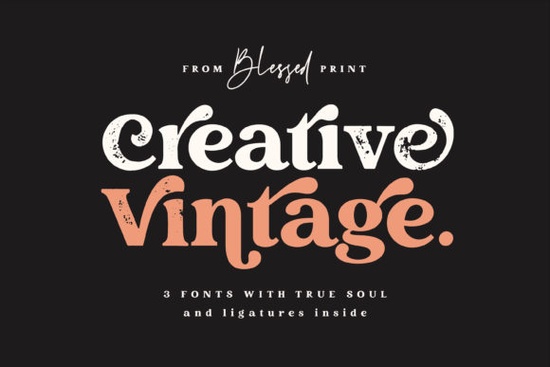
If you’ve been searching for a font that feels both nostalgic and fresh, Creative Vintage Font might be exactly what your next project needs. It’s not just another retro typeface it’s a duo font, meaning you get two distinct styles in one: a bold display version and a flowing script. Whether you’re designing merch for your Etsy shop, branding a small café, or personalizing wedding invites, this font adapts without losing its character.
What makes it especially handy is how well it pairs with other fonts in your toolkit. You could layer it over something clean like Cormorant Garamond for contrast, or let it stand alone on posters and packaging where you want to grab attention. The script version has enough personality to feel handcrafted, while the display style holds up even at smaller sizes useful for tags, labels, or social media graphics.
Who actually benefits from using Creative Vintage Font?
It’s not just for graphic designers. If you run a print-on-demand store, this font can help your t-shirts, mugs, or tote bags stand out with minimal effort. Crafters love it for vinyl cutting projects because the strokes are thick enough to avoid tearing. Small business owners use it for signage, menus, or promotional flyers it reads well from a distance but still feels personal up close.
Even hobbyists working on scrapbooks or greeting cards find it surprisingly easy to style. Since it’s a duo font, you can switch between the script and display versions to create hierarchy without needing extra typefaces. That’s a big time-saver when you’re juggling multiple projects.
How does it compare to other vintage-style fonts?
Some vintage fonts lean too hard into distressed textures or overly ornate swirls, which can limit where you use them. Creative Vintage avoids that. It’s clean where it needs to be, detailed where it counts. For example, if you like the energy of Street Writing but want something more polished, this is a great middle ground.
It also plays nicer with modern layouts than heavier retro fonts like Retro Magic. And if you usually reach for something structured like Varsity Narrow but crave a little more flair, the script version of Creative Vintage gives you that flexibility without clashing.
What kinds of projects work best with this font?
- Branding: Coffee shops, boutiques, bakeries anywhere that wants to feel welcoming but still stylish.
- Merchandise: T-shirts, stickers, enamel pins. The bold weight pops on dark backgrounds.
- Events: Wedding suites, birthday banners, baby showers. The script adds warmth; the display adds clarity.
- Social Media: Instagram quote posts, Pinterest pins, TikTok thumbnails. It’s legible even at thumbnail size.
- DIY Crafts: Heat transfer vinyl, wood signs, embroidery patterns. No thin lines to fuss with.
Any tips for styling it without overdoing it?
Avoid pairing it with other script fonts that can get visually noisy. Instead, try combining it with a simple sans-serif or a classic serif like Cormorant Garamond to let Creative Vintage shine. Use the script for headlines or accents, and the display version for body text or subheadings.
Also, don’t feel pressured to add textures or shadows. The font already has enough visual weight to stand on its own. A little white space around it often works better than extra effects.
If you’re unsure about color, start with black or deep navy on cream or kraft paper tones. That combo leans into the vintage vibe without looking dated.
Is it worth adding to your font library?
If you regularly design for clients or your own brand, yes. It’s one of those fonts that doesn’t scream for attention but consistently delivers strong results. You won’t need to tweak kerning or spacing much it’s well-crafted out of the box. And since it’s available through Creative Fabrica, you can grab it as part of their subscription or as a one-time purchase, depending on your workflow.
Designers who’ve used it say it’s become a quiet staple not the flashiest tool in their kit, but one they reach for again and again because it just works.